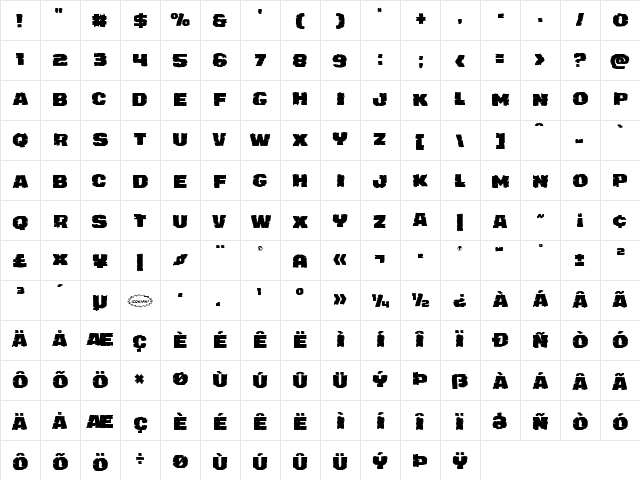
Jugger Rock Staggered Regular Font Preview
Jugger Rock Staggered Regular
Design Context for Jugger Rock Staggered Typeface
Jugger Rock Staggered is a composed and adaptable typeface that performs quietly and consistently across a wide range of design contexts.